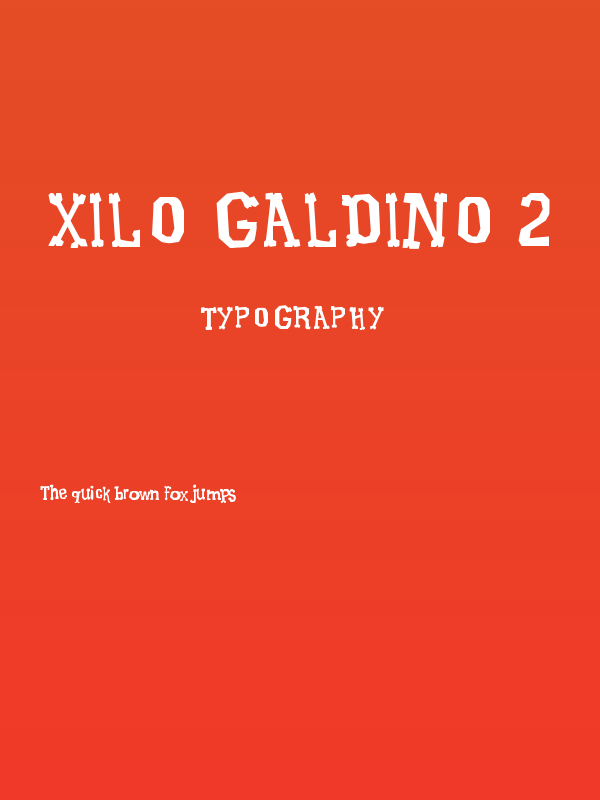
Xilo Galdino 2 Font
Xilo Galdino 2 Description
This font features a rugged, distressed style with uneven edges and a hand-crafted appearance. The characters are bold and impactful, with a slightly irregular form that gives them a unique, organic feel. The uppercase and lowercase letters maintain a consistent weight, while the numbers and special characters follow the same stylistic approach. The font's rough texture and bold presence make it suitable for designs that require a strong, eye-catching element. Its distinctive look is reminiscent of vintage or grunge aesthetics, making it ideal for projects that aim to convey a sense of edginess or authenticity.